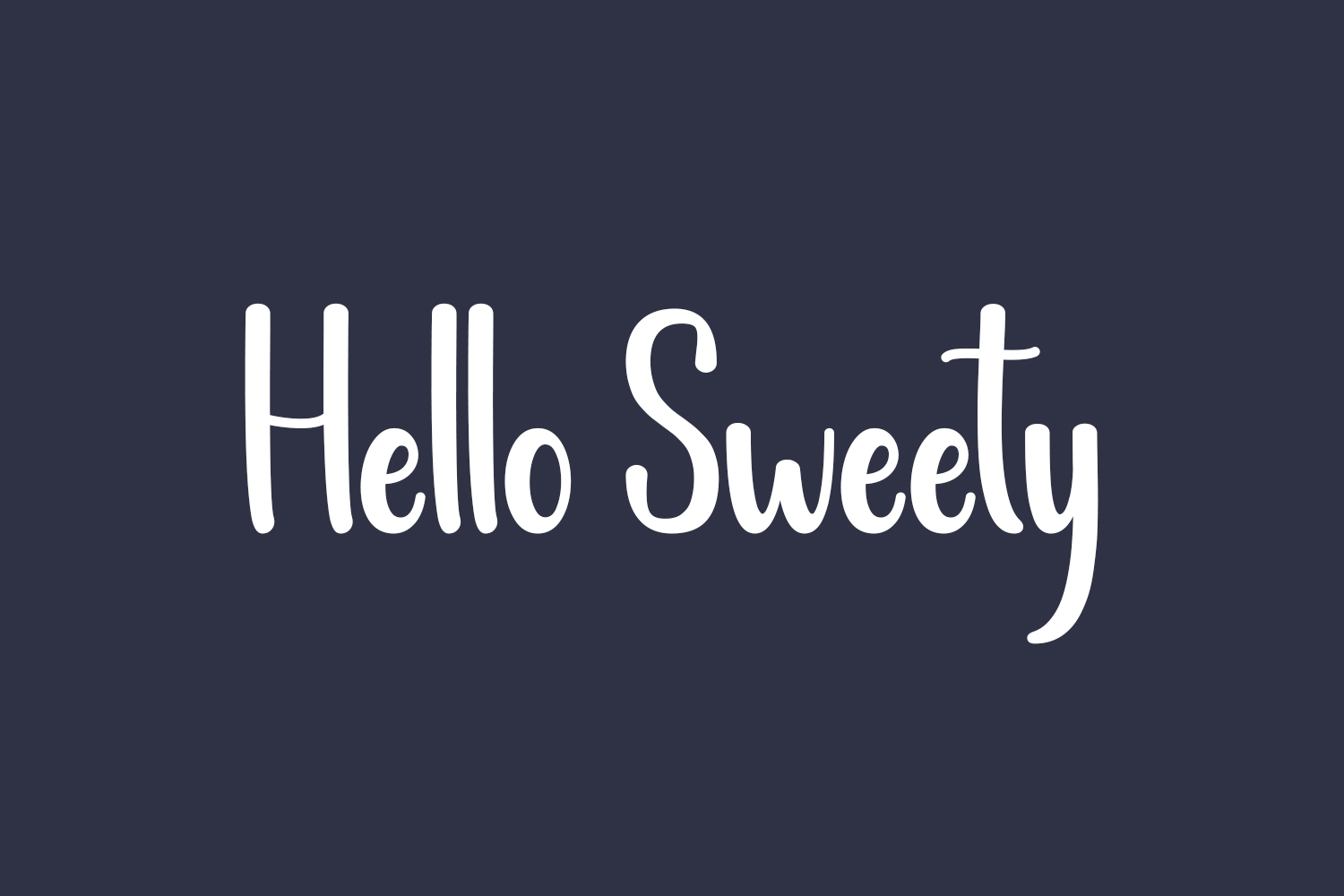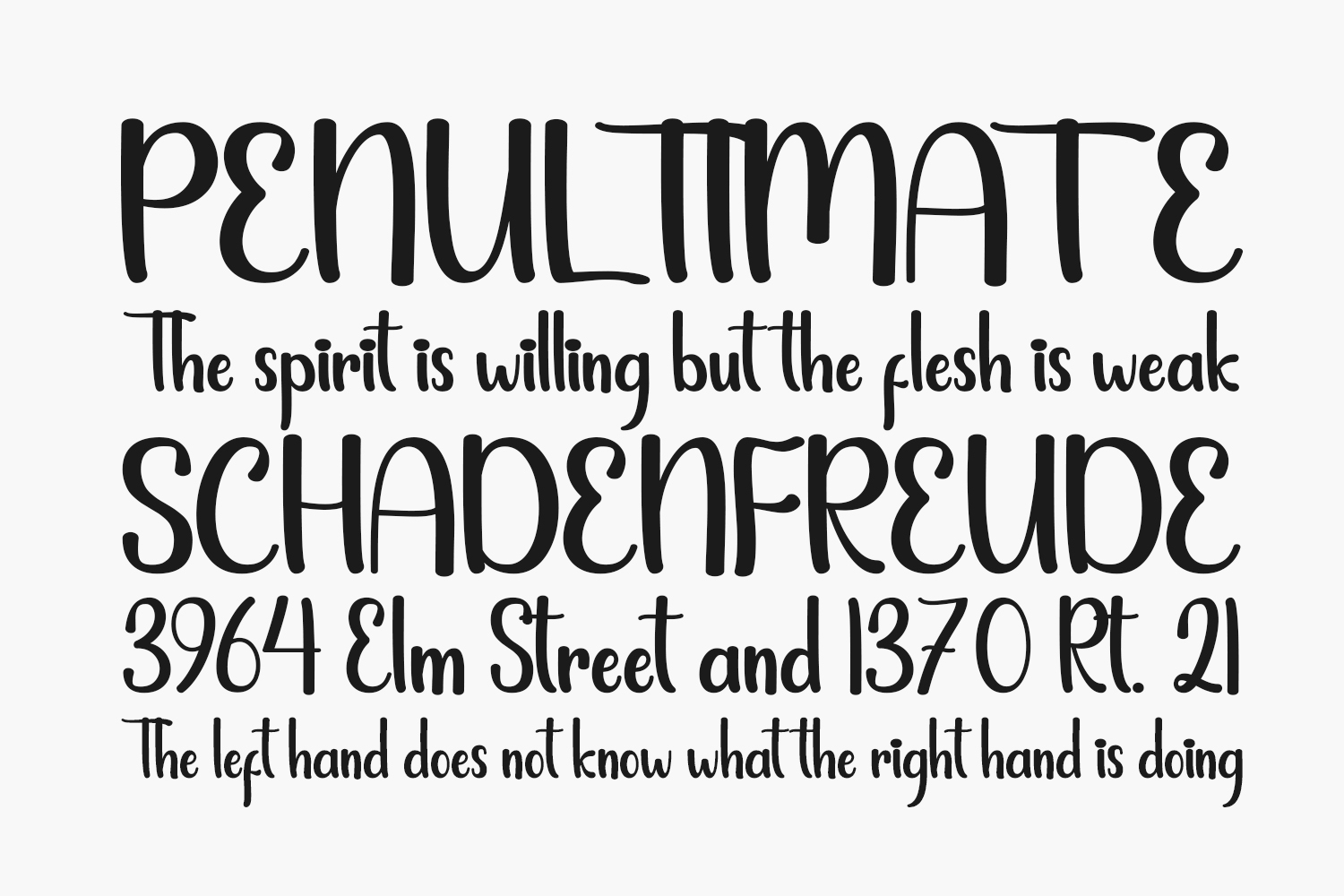
Hello Sweety Free Font is a delightful, charming handwritten font that exudes simplicity and fun. Perfect for crafts, digital designs, presentations, or creating heartfelt greeting cards, this font is poised to become your ultimate favorite for any occasion. Download the font for free if you need it for personal use or purchase the full version for commercial use.